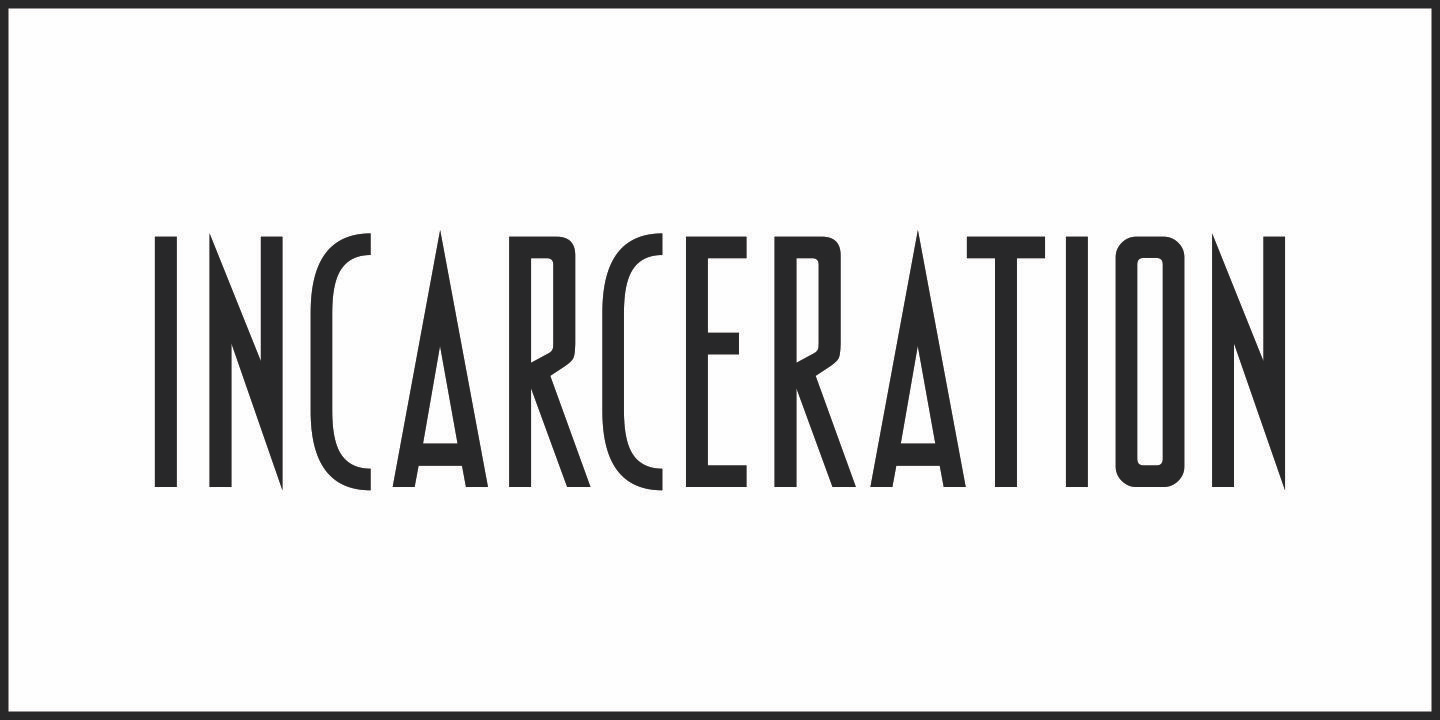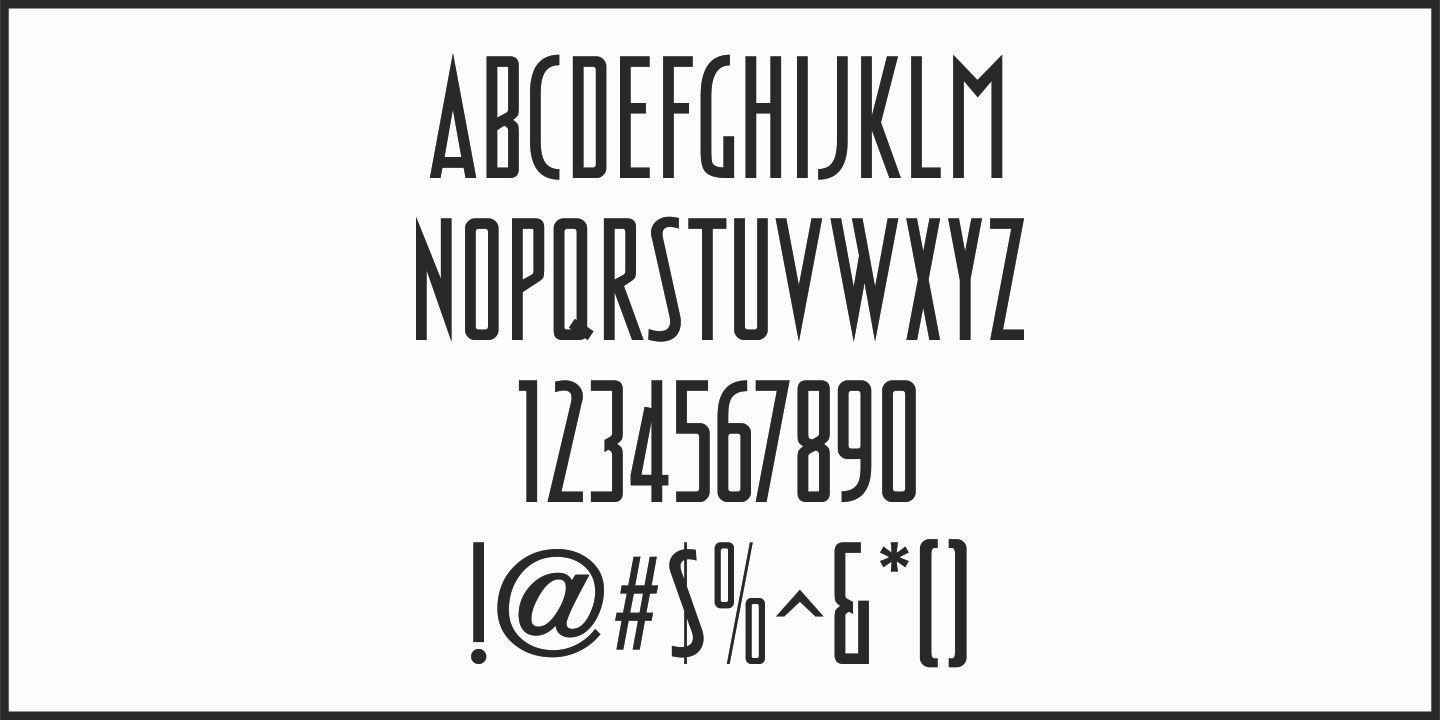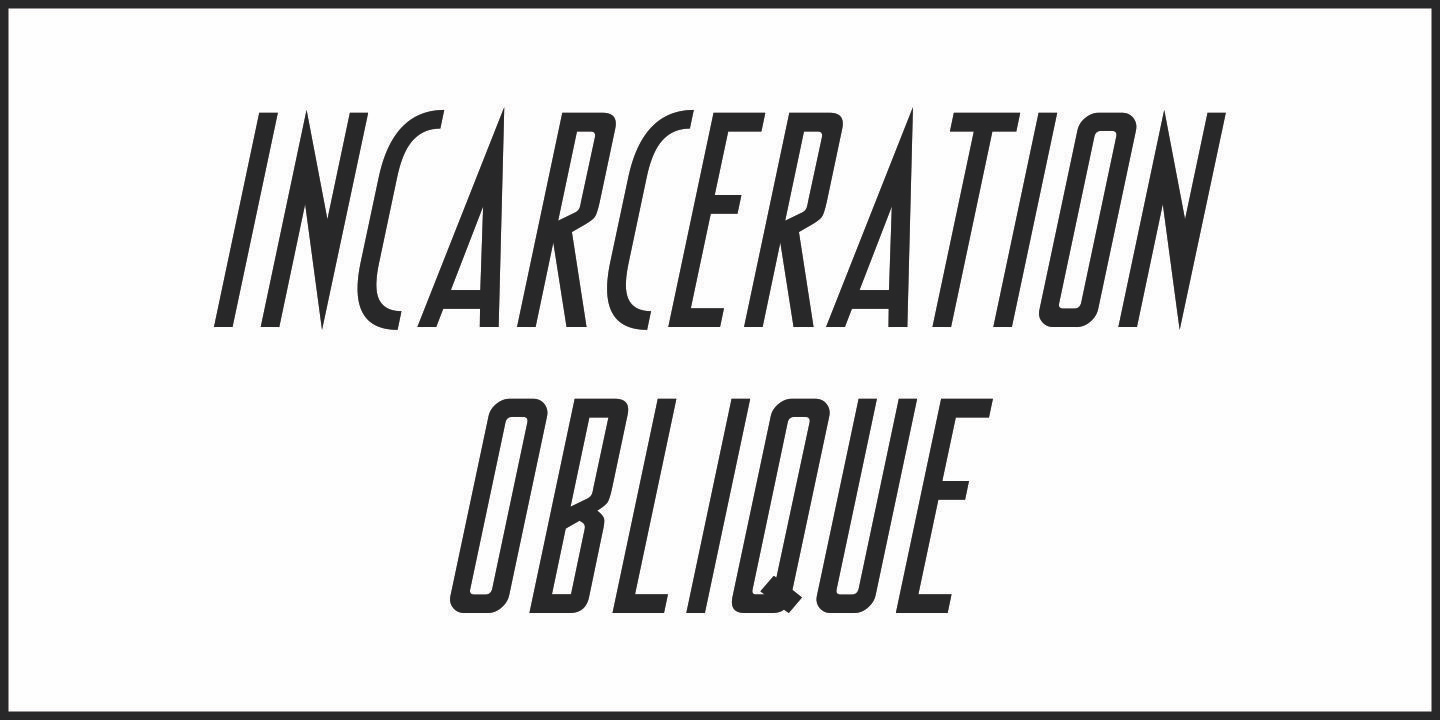
Incarceration
The hand lettered Art Deco title on the cover of the sheet music for 'There Must be A Bright Tomorrow (for Each Yesterday of Tears)” inspired the font Incarceration JNL, which is available in both regular and oblique versions.
Incarceration JNL earns its dubious name from the fact the song was written by Prisoner No. 3223 (Wallace Wysocki) who was held in the Marquette State Prison, Marquette, Michigan (1931)